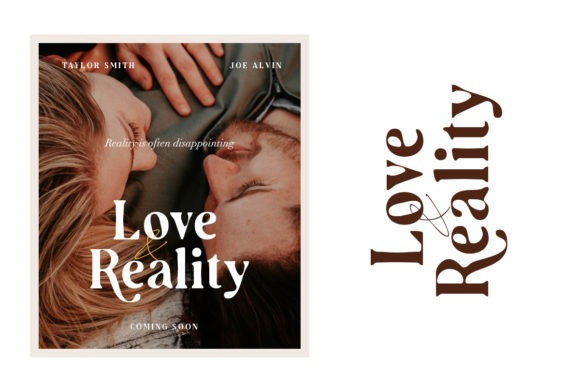
Audrey Mirages Font
Audrey Mirages Serif Font
A classic serif font developed especially for titles and headlines. It’s designed and shared by saridezra. It can easily be matched to an incredibly large set of projects, so add it to your creative ideas and notice how it makes them stand out!